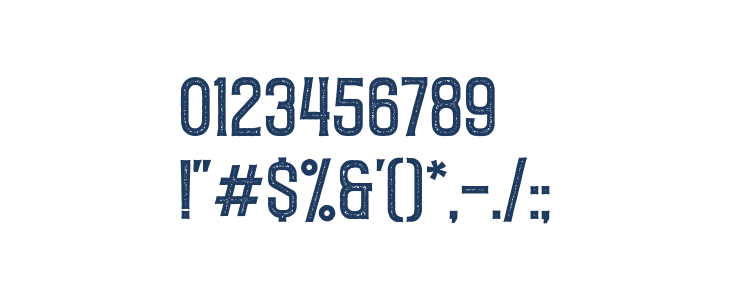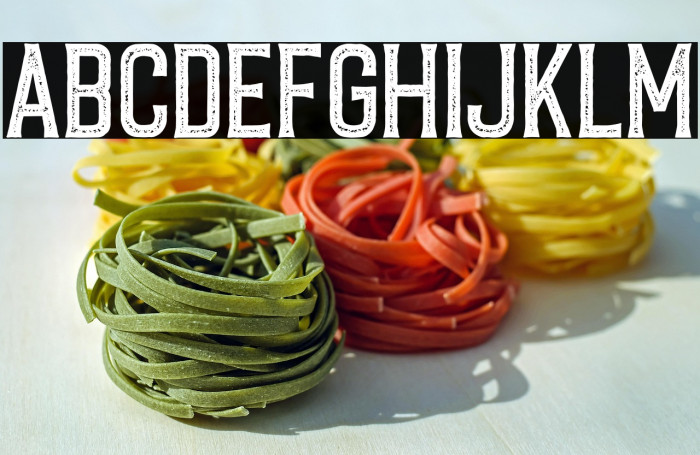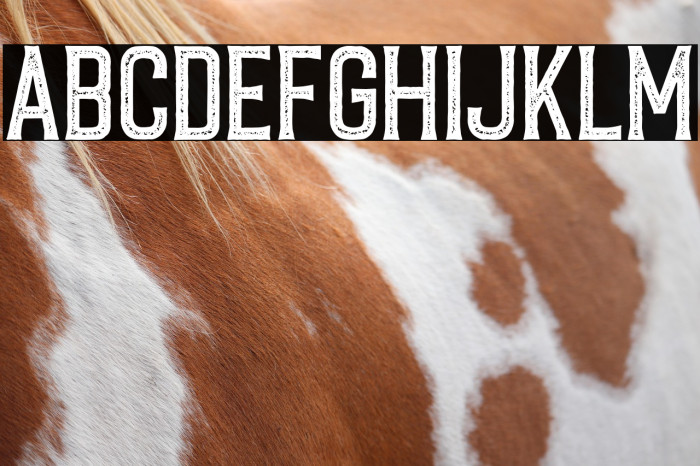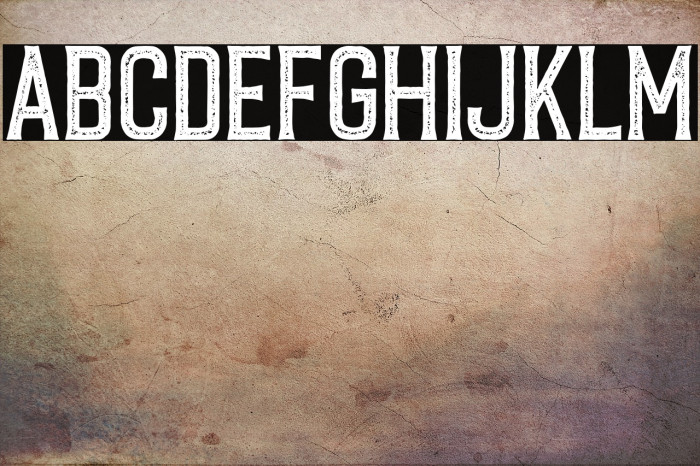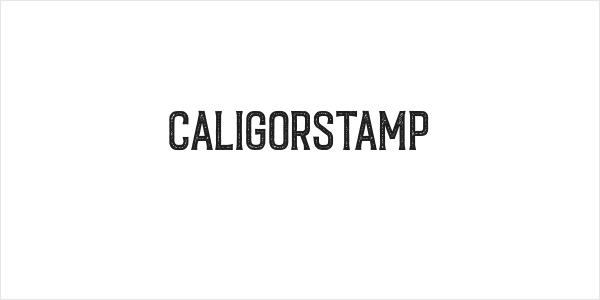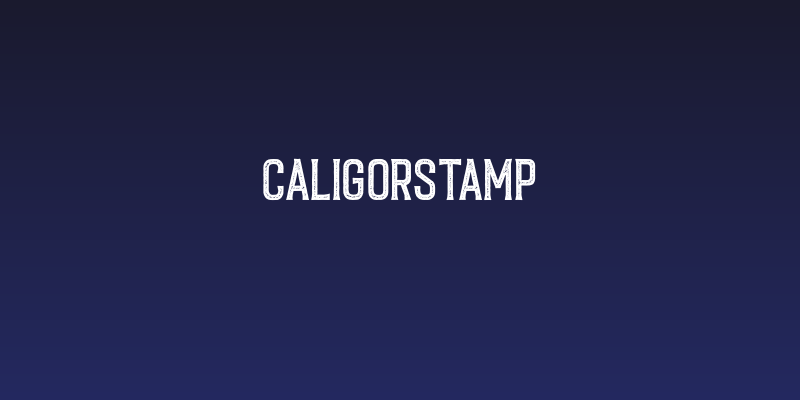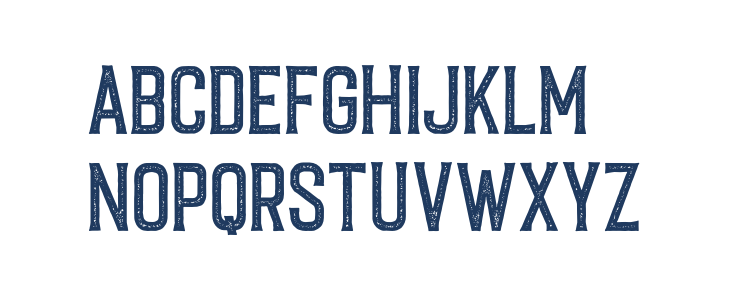
CaligorStamp Font
CaligorStamp Description
This font features a bold, distressed style with a textured appearance reminiscent of vintage rubber stamps. The characters are uppercase and lowercase, with numerals and a variety of special characters. The design is characterized by its rough edges and uneven texture, giving it a handcrafted, rustic feel. The letters are evenly spaced, maintaining a consistent alignment that enhances readability despite the distressed look. This font evokes a sense of nostalgia and authenticity, making it suitable for projects that aim to convey a vintage or industrial aesthetic.
| Overall Style | Vintage |
| Use Case | Logos, Headlines, Posters |
| Proposed Projects | Ideal for branding, packaging, posters, and any design project seeking a vintage or industrial look. |